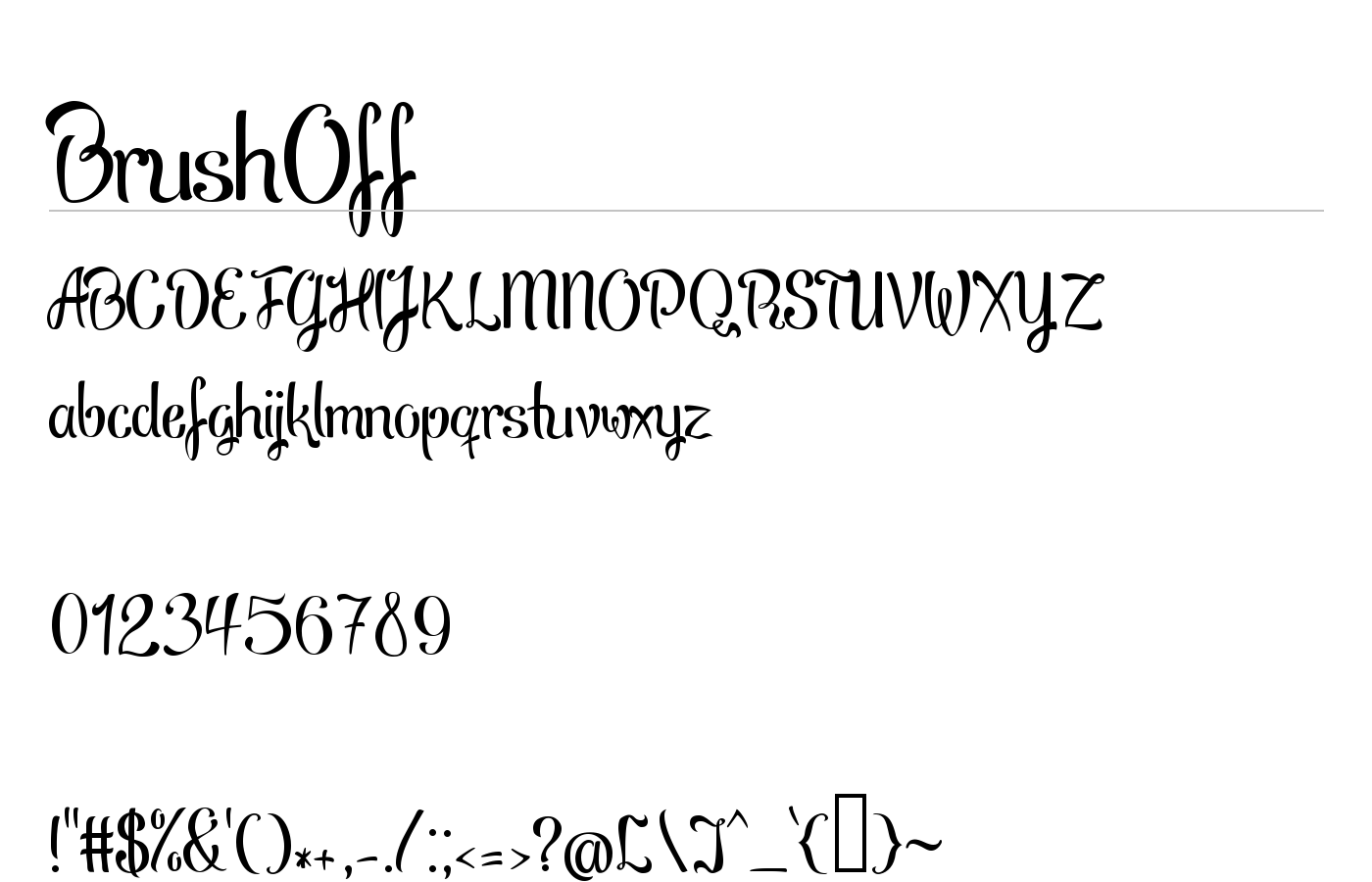
BrushOff is a stylish script font that features elegant, flowing letterforms with a hand-brushed feel. Its tall, slender characters with varying stroke widths create a lively yet refined look, perfect for adding a personal, artistic touch to branding, invitations, and creative headlines. This font works best where a sense of sophistication and handmade charm is desired.
BrushOff Font
About BrushOff Font